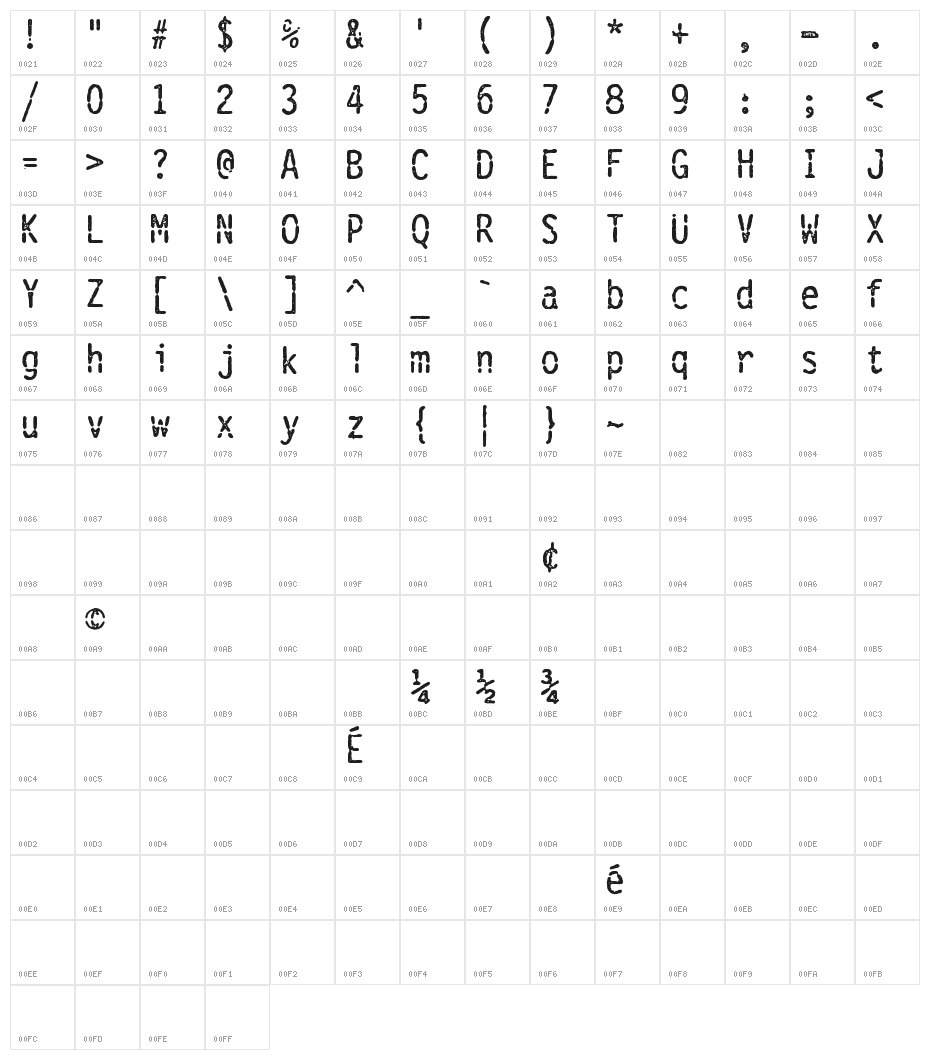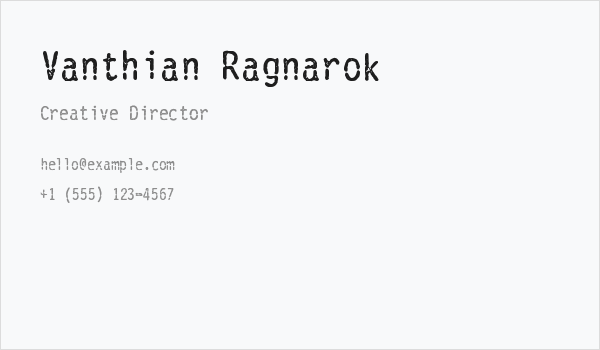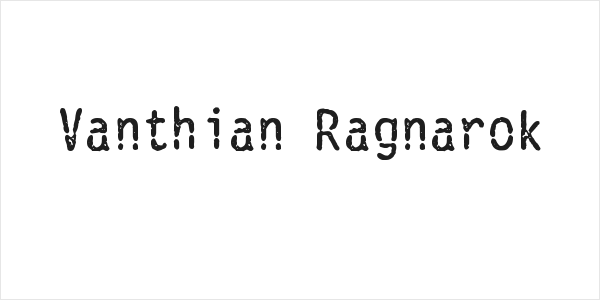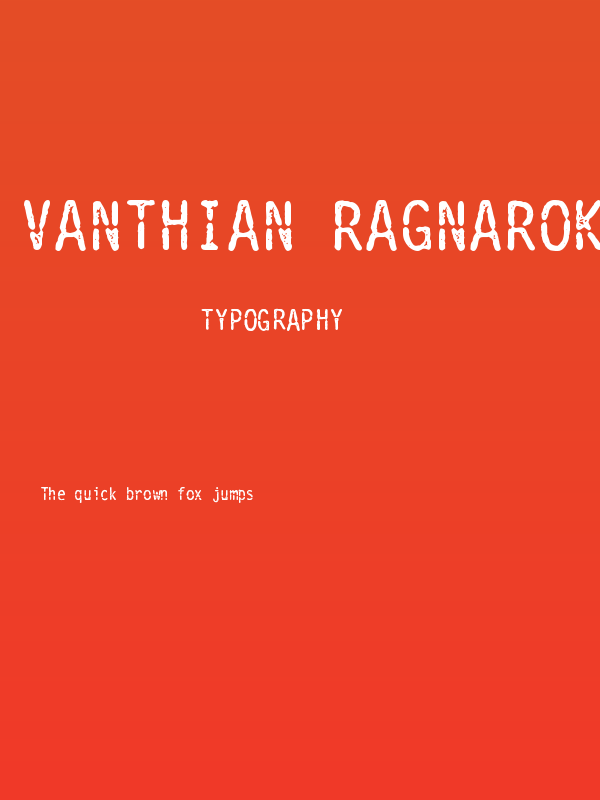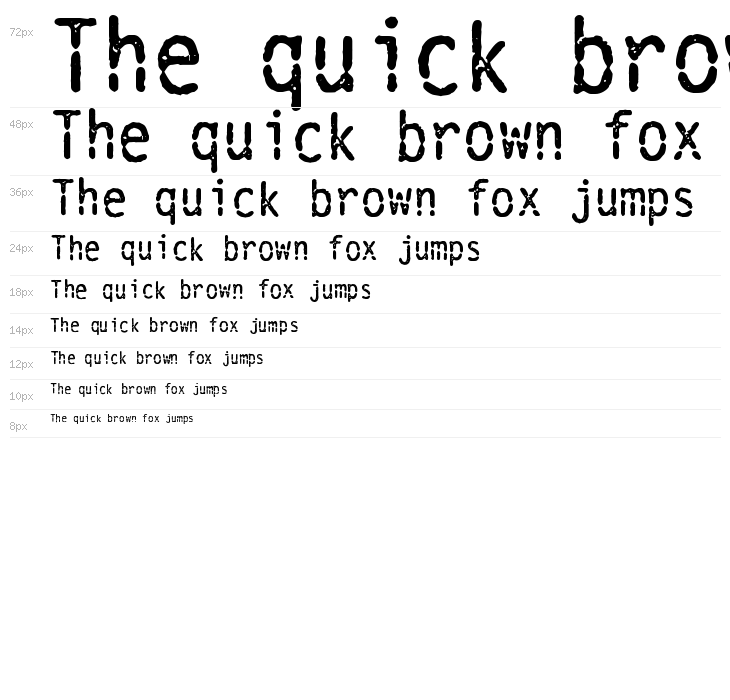
Vanthian Ragnarok Font
Vanthian Ragnarok Description
This font features a rugged, distressed appearance with a hand-drawn quality, characterized by irregular edges and a textured, worn look. The uppercase and lowercase letters maintain a consistent style, with rounded forms and a playful, organic feel. Numbers and special characters share the same distressed aesthetic, making the font cohesive across all elements. The overall design suggests a sense of antiquity and rawness, suitable for projects that require a touch of grunge or vintage flair. Its unique style captures attention and adds character to any design.
| Proposed Projects | Ideal for posters, album covers, branding for rustic or vintage-themed products, and creative projects needing a bold, distinctive look. |